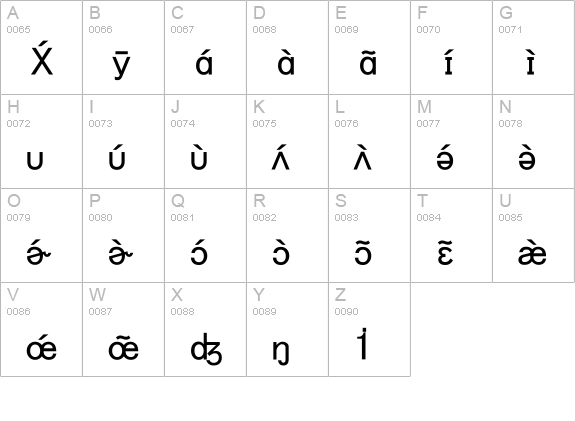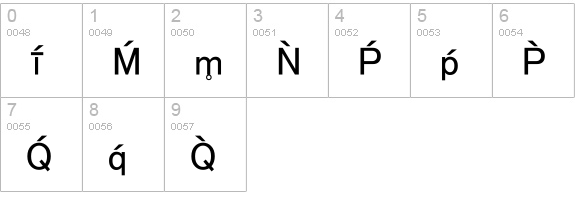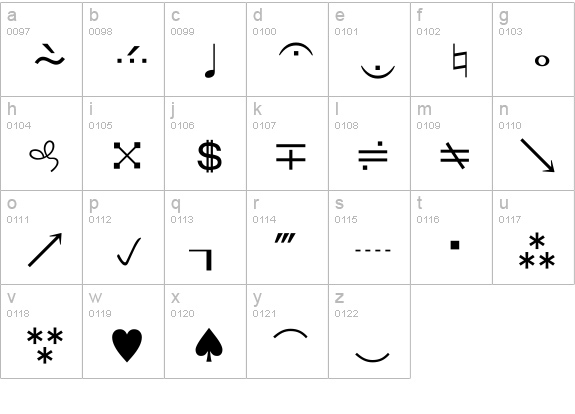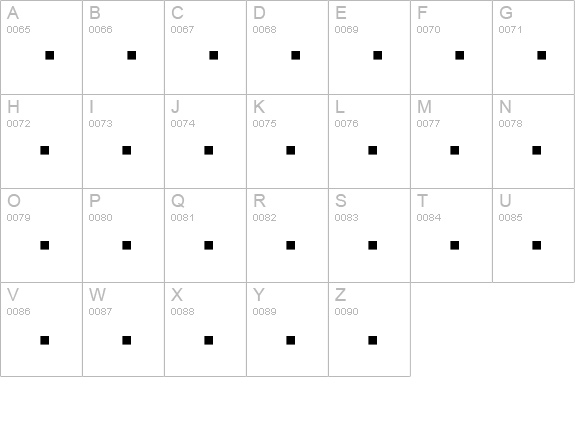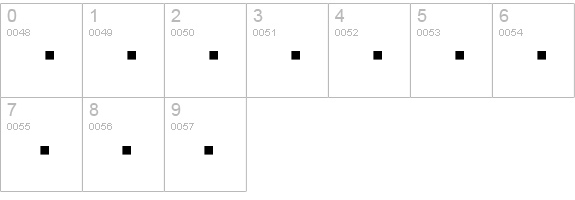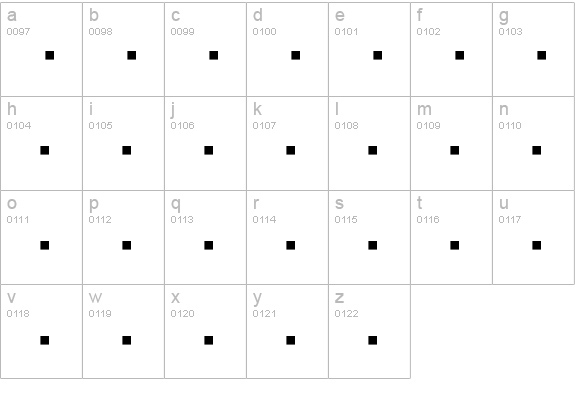
Bookshelf Symbol 7 font is a versatile and distinctive typeface that exudes a sense of creativity and uniqueness. With its clean lines and bold characters, this font is perfect for adding a touch of sophistication to any project. Whether you're designing a poster, logo, or website, Bookshelf Symbol 7 font will make your text stand out and leave a lasting impression. The best part? Bookshelf Symbol 7 font is available for free download at FontsMarket.com. So you can easily access this stylish font and use it in your designs without any cost. Don't miss out on the opportunity to enhance your projects with the elegant and eye-catching Bookshelf Symbol 7 font today!